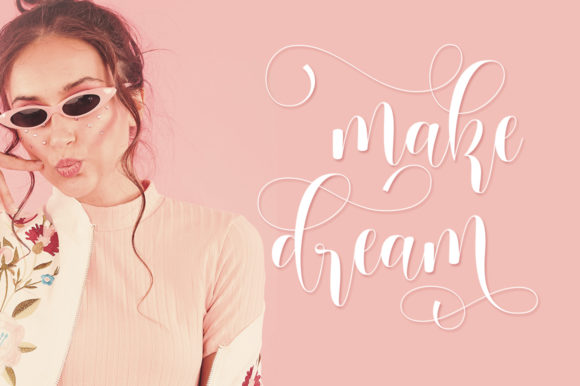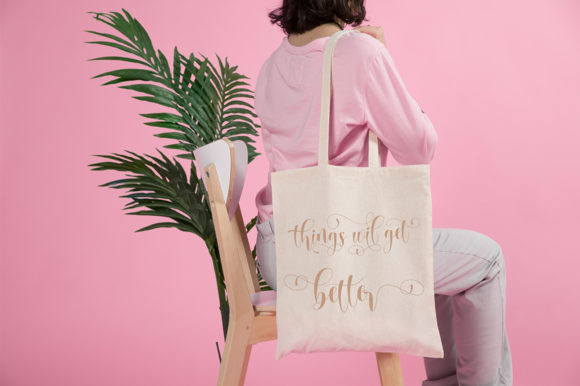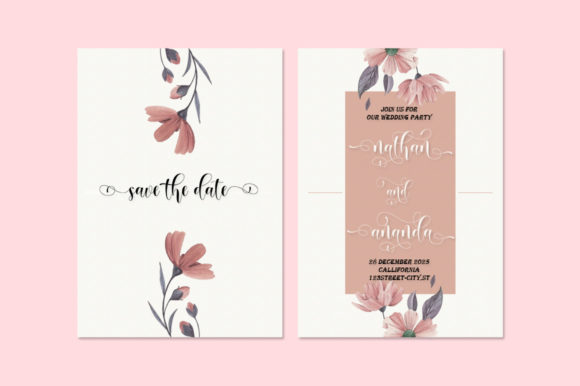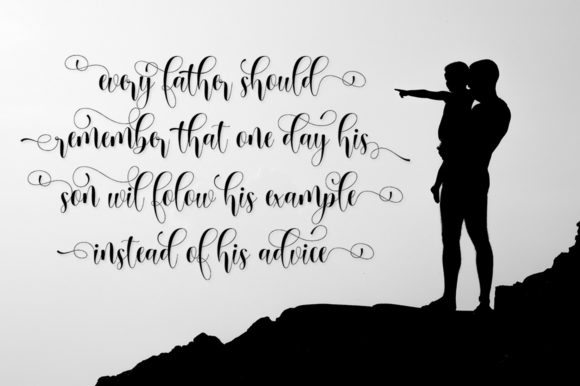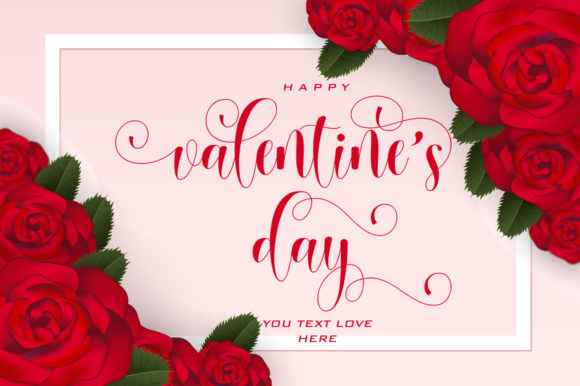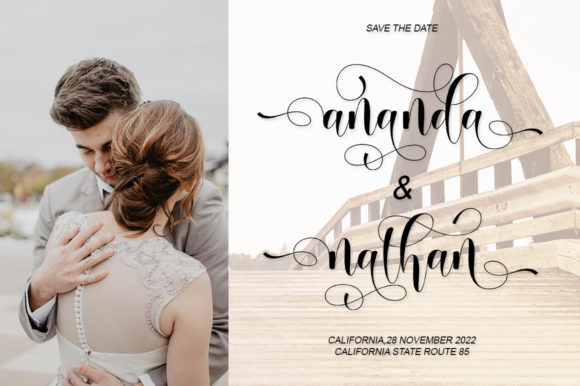
Unleashing Creativity with the Bebimelista Font
Have you ever stared at a blank page, struggling to find the perfect font to bring your creative vision to life? You know that feeling when everything seems just out of reach, but then you stumble upon a font that makes your heart skip a beat? For me, that moment happened when I discovered the Bebimelista Font.
This gorgeous script font is a treasure trove of creative possibilities, with its cute rounded characters inviting designers to experiment and push the boundaries of what’s possible. Whether you’re crafting a beautiful wedding invitation, a stunning piece of artwork, or a eye-catching social media post, the Bebimelista Font is the perfect companion for your design journey.
What makes the Bebimelista Font so valuable for designers is its unique ability to add a touch of authenticity and personality to any design. Its nuances and characteristics make it a standout choice for anyone looking to create something truly special and memorable.
Bebimelista Font Key Features
- Font Family: Bebimelista Font is a unique, hand-drawn script font designed for creative and artistic purposes.
- Character Count: The font includes a wide range of characters, including uppercase and lowercase letters, numbers, and punctuation marks.
- Size and Resolution: Available in 4 different font sizes (Regular, Bold, Italic, and Bold Italic) and 72 dpi resolution, making it ideal for both print and digital designs.
- Unique Characteristics: The Bebimelista Font features a playful, handwritten style with subtle imperfections and texture, adding a personal touch to any design project.
Bebimelista Font Review
Overall, I think Bebimelista Font is a solid choice for designers who want a unique and playful typeface. Here are some of its strengths: ✨
- Highly customizable: Bebimelista Font offers a wide range of weights, from light to bold, which makes it perfect for designers who need to create visually appealing typography for various projects.
- Fun and quirky feel: The font’s irregular shapes and irregular lines give it a playful, handwritten feel that’s perfect for creative projects, such as advertisements, magazines, and social media graphics.
- Good legibility: Despite its unique design, Bebimelista Font is still easy to read, making it a great choice for body text or headings.
- Limited language support: Bebimelista Font may not be suitable for projects that require support for multiple languages, as it may not cover all the necessary characters.
- May not be suitable for formal projects: The font’s playful and quirky design may not be suitable for formal projects, such as business reports or academic papers.
Overall, I would recommend Bebimelista Font to designers who want a unique and playful typeface for their creative projects. However, it may not be the best choice for formal or language-sensitive projects.
The Bebimelista Font is a great choice for creating visually appealing and creative designs. Some common use cases include:
- Event invitations and flyers
- Wedding and party decor
For optimal results, use the Bebimelista Font in combination with bold colors and creative graphics.